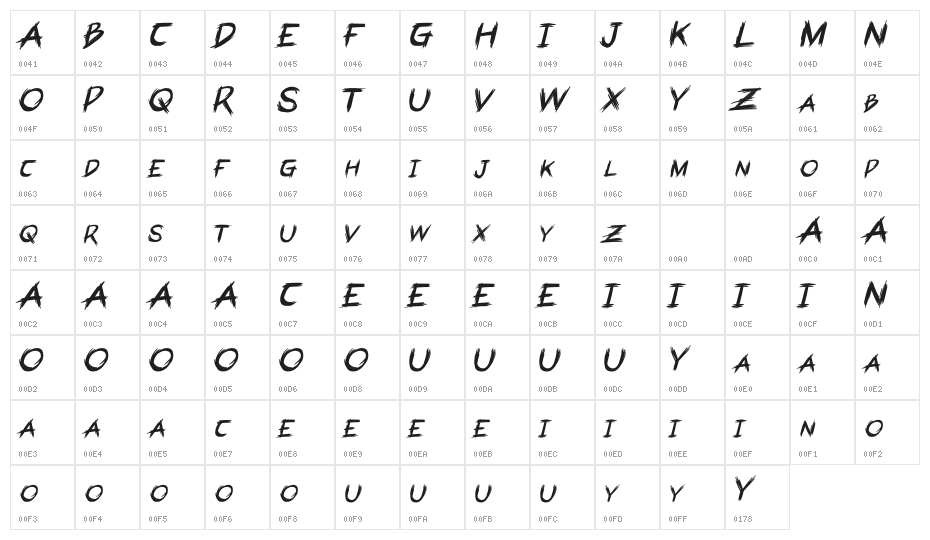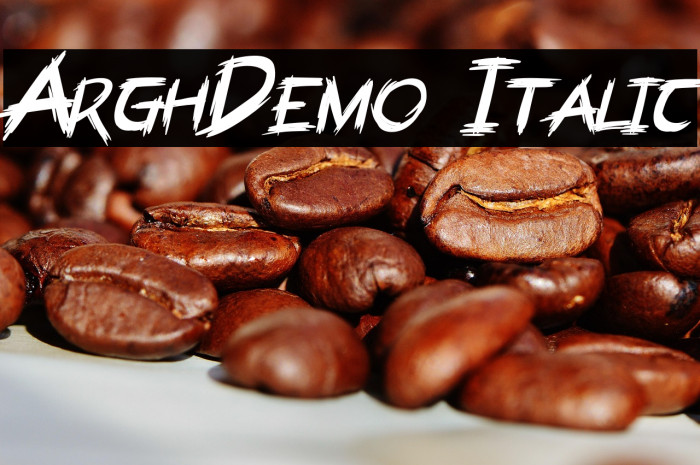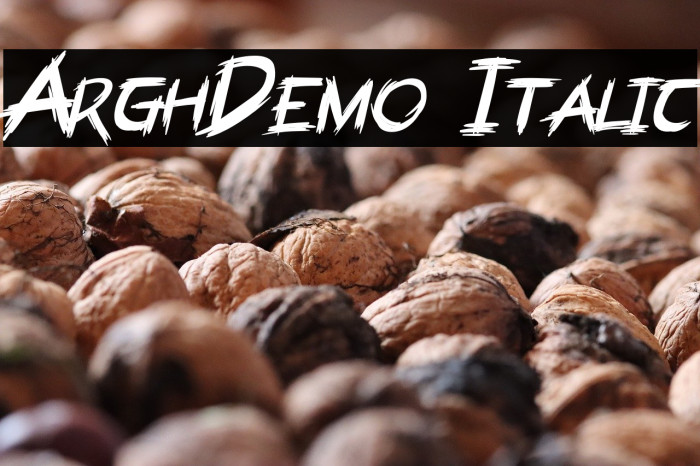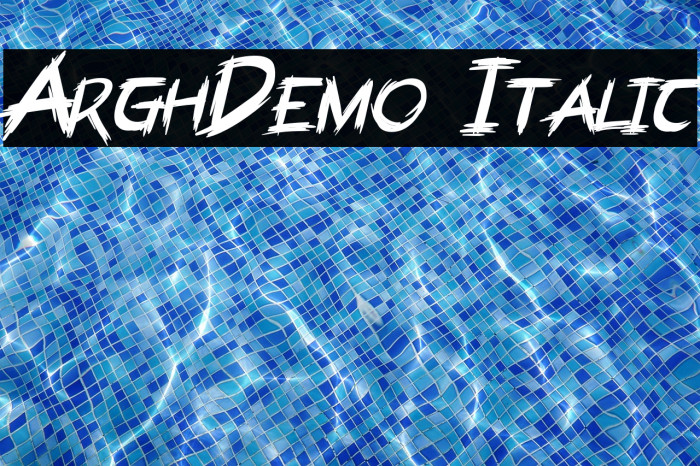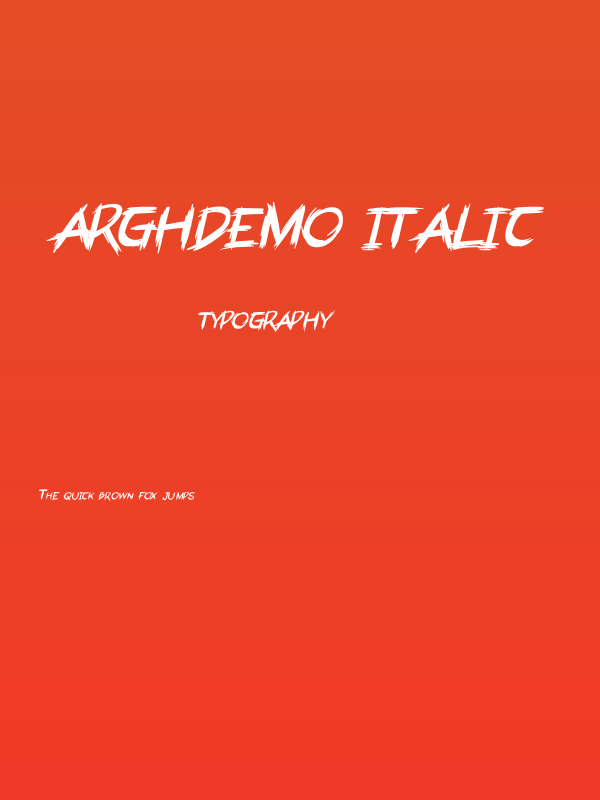
ArghDemo Italic Font
ArghDemo Italic Description
This font features a dynamic and edgy design, characterized by sharp, jagged edges and a hand-drawn aesthetic. The letters are italicized, giving them a sense of motion and energy. The strokes are uneven, with a brush-like texture that adds a raw and expressive feel. This style is reminiscent of graffiti or street art, making it stand out with its bold and unconventional appearance. The uppercase and lowercase letters maintain a consistent style, ensuring readability while still embracing a wild and untamed look. The font's unique character makes it suitable for projects that require a strong visual impact.
| Proposed Projects | Ideal for album covers, posters, streetwear branding, and any design needing a rebellious or energetic vibe. |